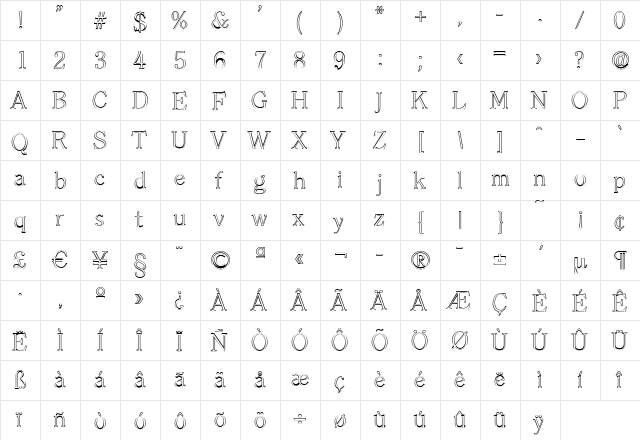
ChristianBeckerOutline-ExLight Regular Font Preview
Design Context for ChristianBeckerOutline-ExLight Typeface
ChristianBeckerOutline-ExLight is built around its visual character rather than neutral utility — its distinctive forms are designed to make an impression at display sizes. Its slender proportions lend an understated elegance to any composition.
Font Pairing: Pair with a clean neutral sans-serif for body copy to let ChristianBeckerOutline-ExLight's character lead without overwhelming the composition.
Pro Tip: Treat ChristianBeckerOutline-ExLight as the centrepiece of your typographic hierarchy. One strong heading set in a decorative face can carry an entire layout.